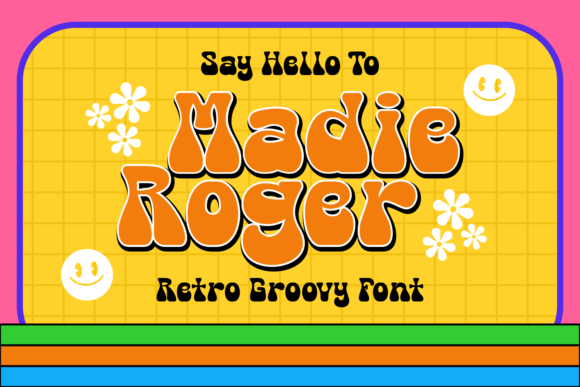
Get ready to dive into a world of nostalgia and retro charm with Madie Roge, an extraordinary display font that will transport your designs to the groovy era of the 1960s and 70s. This captivating font, brought to life by the talented Situjuh, is an authentic masterpiece that oozes vintage flair and timeless appeal.
Madie Roge is not just any font; it's an experience, a journey through time that will elevate your designs to new heights of creativity. Its elongated and curvy letters, adorned with bold serifs and intricate flourishes, dance across the page, demanding attention and admiration. This font is the epitome of retro elegance, perfect for capturing the essence of bygone eras and making a statement that resonates with your audience.
Imagine your designs adorned with Madie Roge, whether it's a psychedelic poster, a groovy album cover, or eye-catching advertising materials. This font has the power to transform ordinary projects into extraordinary works of art, evoking the nostalgia and charm of a simpler time. Unleash your creativity and let Madie Roge take you on a magical journey through the decades.
Madie Roge's versatility extends beyond retro designs. Its bold and expressive letterforms also excel in contemporary projects, adding a touch of vintage charm to modern aesthetics. Use it for branding, logos, social media graphics, or any project that demands a unique and unforgettable visual identity.